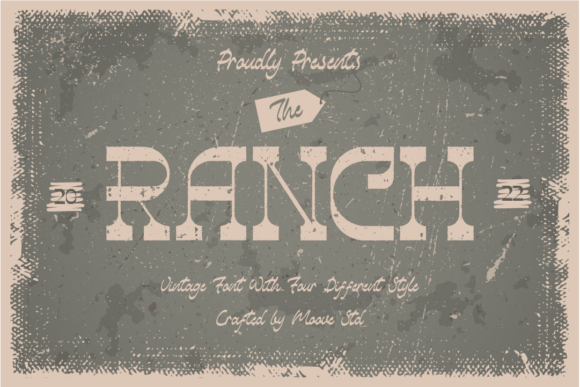
Introducing the captivating and versatile The Ranch Duo Font, a retro and western-looking font duo designed by the talented Moove Studio. This font family, consisting of a display and script font, is a must-have for anyone looking to add a touch of vintage charm to their designs.
With its bold and unique appearance, The Ranch Duo Font stands out from the crowd and instantly grabs attention. Whether you're designing book covers, magazine spreads, or eye-catching social media posts, this font is sure to elevate your creations to new heights.
But the uses of The Ranch Duo Font don't stop there. Imagine the impact it would have on your invitations, greeting cards, and branding materials. With this font, you can effortlessly infuse a sense of nostalgia and authenticity into your projects, making them truly memorable.
What sets The Ranch Duo Font apart is its ability to evoke emotions and transport your audience to a bygone era. It effortlessly captures the essence of the wild west, creating a sense of adventure and excitement. Your designs will speak volumes and leave a lasting impression on anyone who sees them.
Not only does The Ranch Duo Font offer visual appeal, but it also delivers on functionality. Its readability ensures that your message is conveyed clearly, while its versatility allows for seamless integration into various design themes and styles.